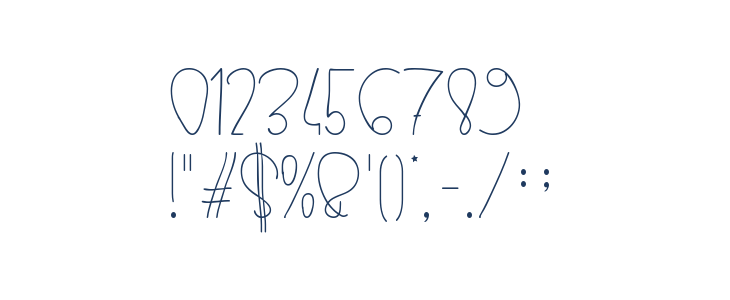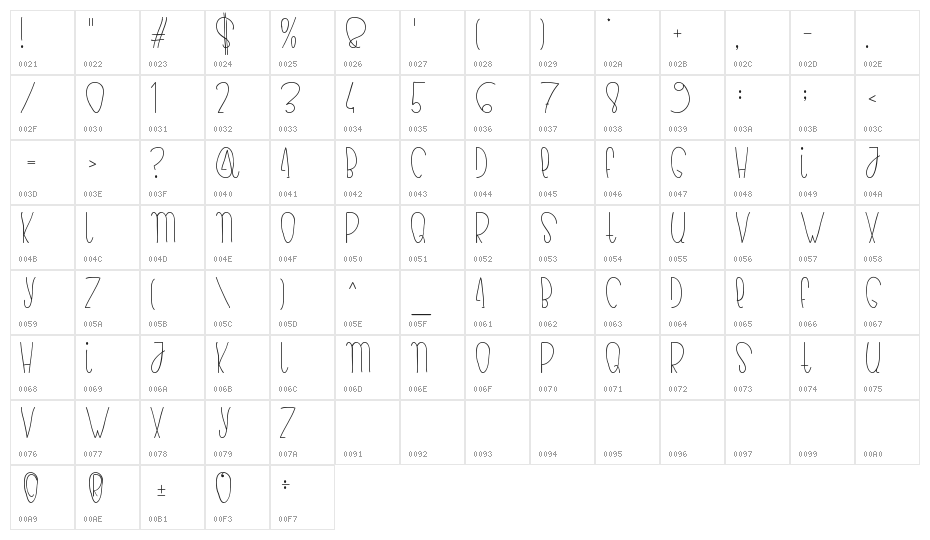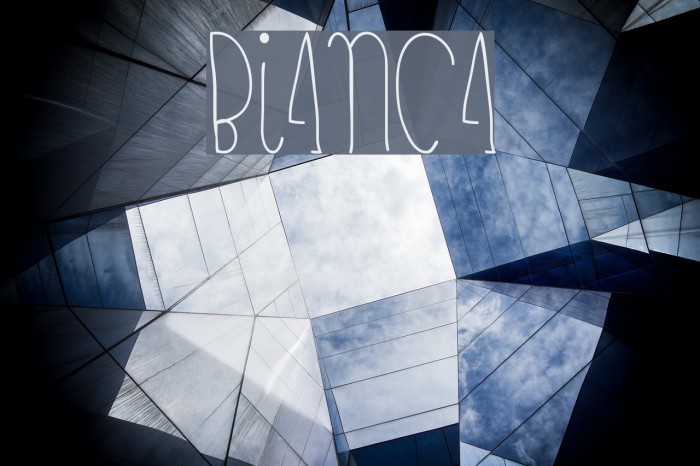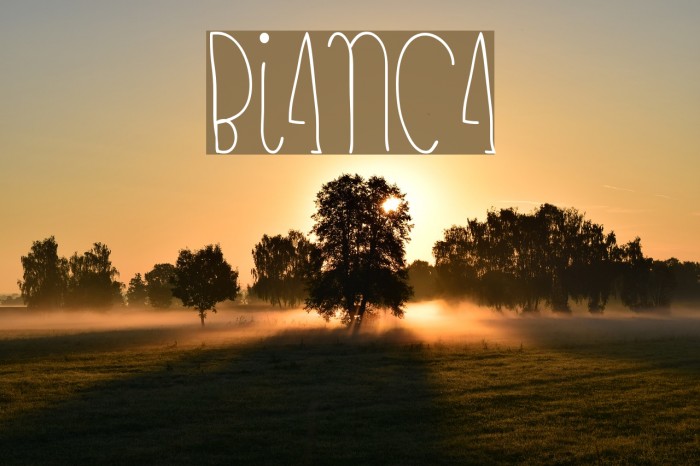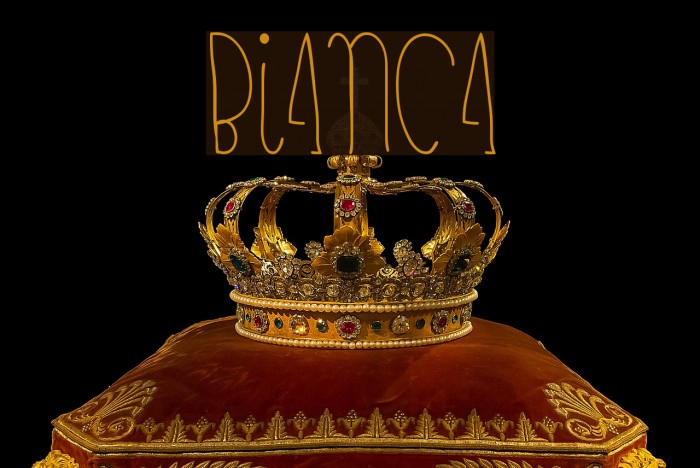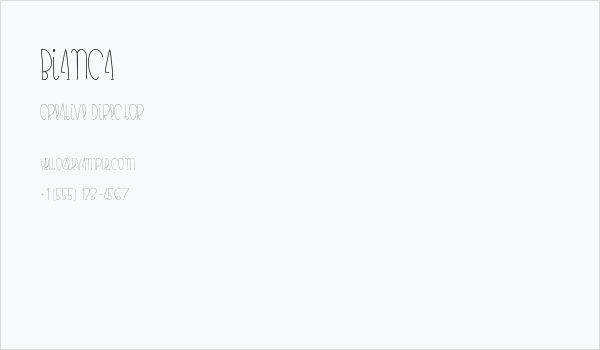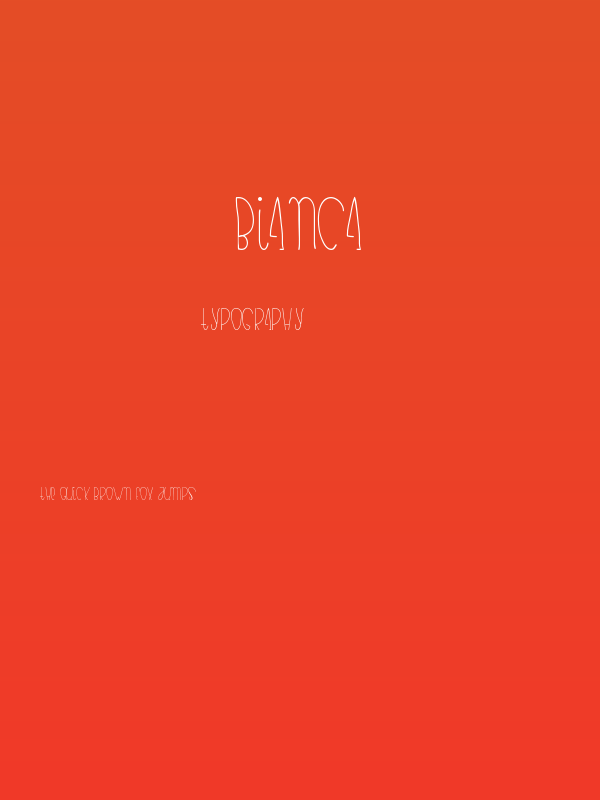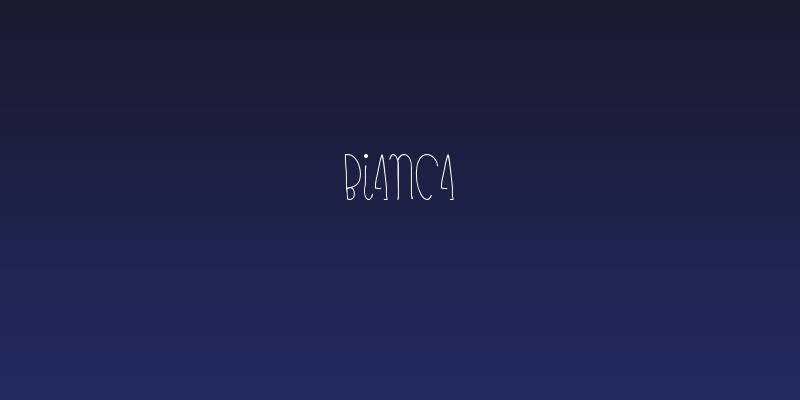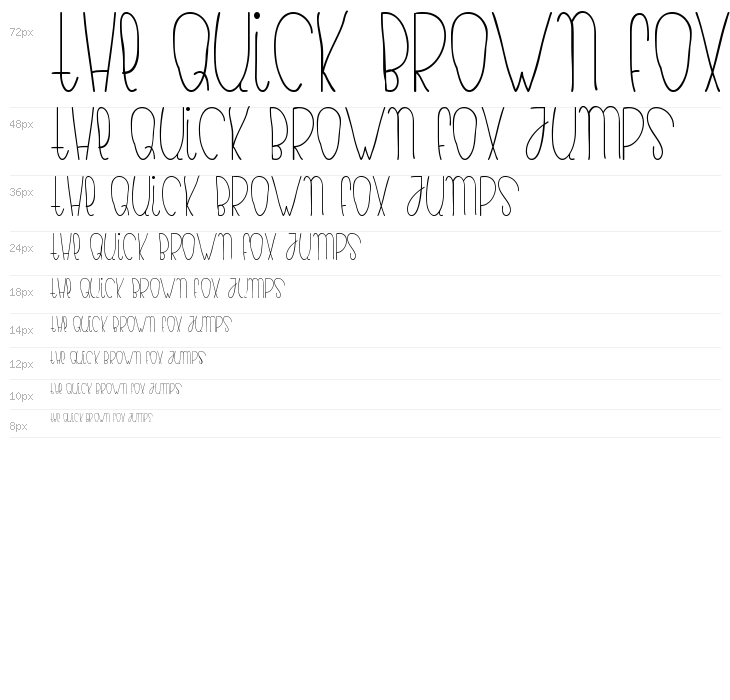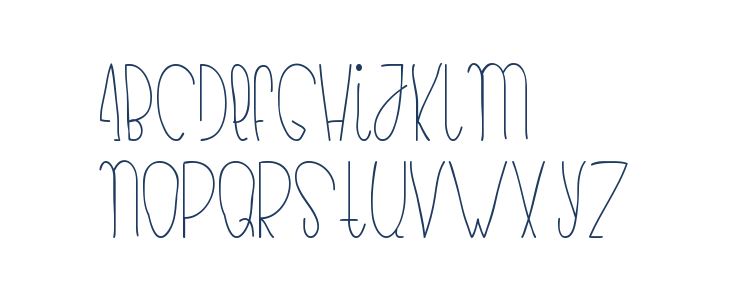
bianca Font
bianca Description
This font features a unique and playful design with elongated, thin strokes that give it a whimsical and airy feel. The characters are tall and narrow, with a consistent stroke width that adds to its elegant and modern appearance. The uppercase and lowercase letters maintain a cohesive style, while the numbers and special characters complement the overall aesthetic. The font's distinctive look makes it suitable for creative projects that require a touch of personality and flair.
| Proposed Projects | Ideal for children's book covers, greeting cards, playful branding, and artistic posters. |